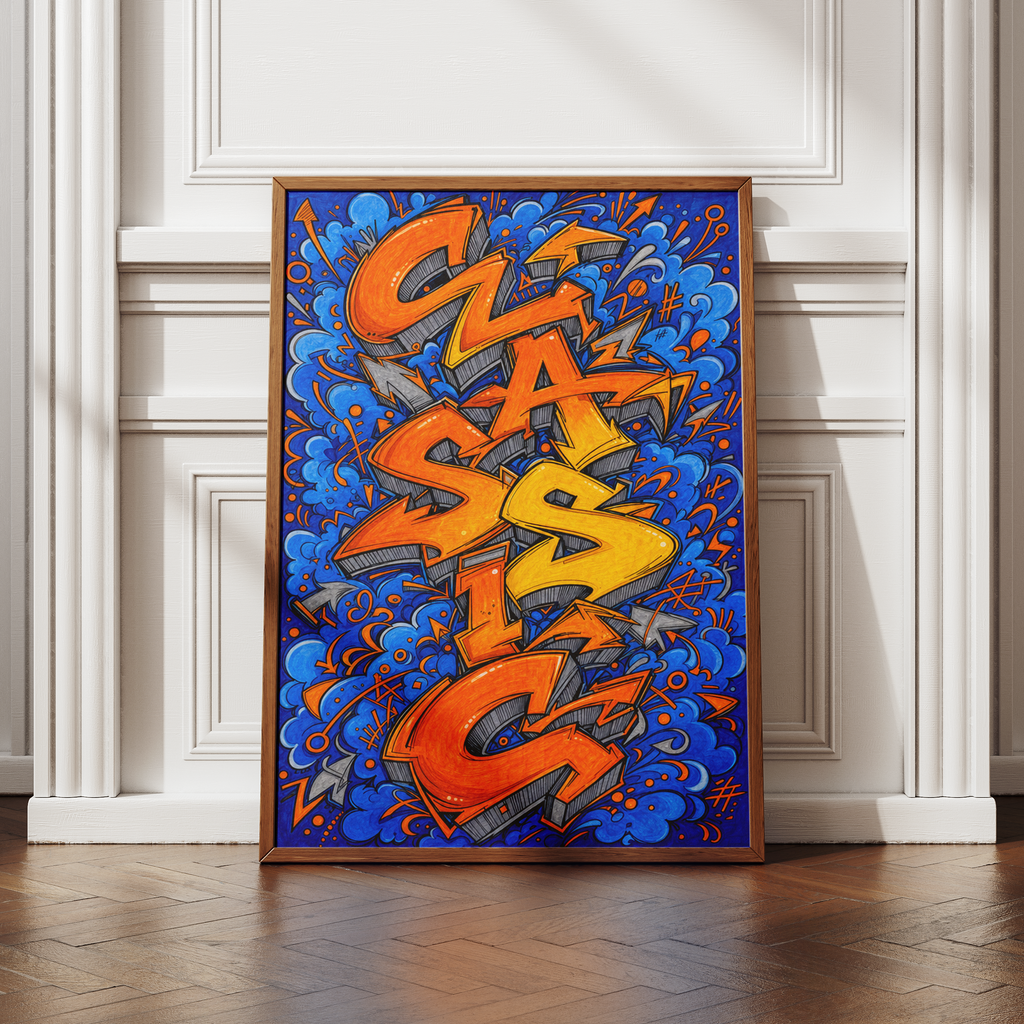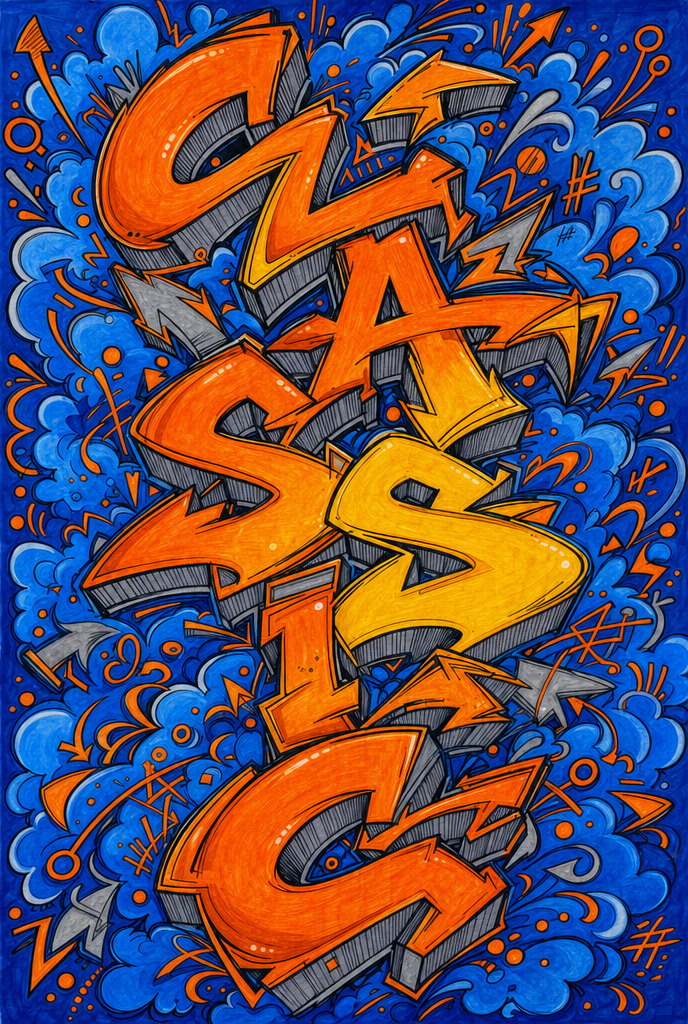
CLASSIC
Graffiti-style street art poster (61 × 91 cm) — vibrant hand-drawn lettering in bold oranges and yellows set against energetic blue backgrounds, packed with arrows, splashes, and urban texture. Makes a dynamic statement for modern apartments, studios, or creative workspaces.